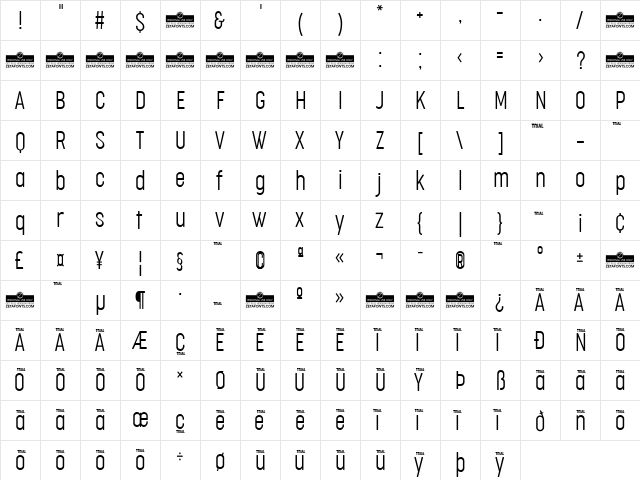
Cocogoose Compressed Trial UltraLight
| Foundry | Zetafonts |
| Designer | Cosimo Lorenzo Pancini |
Design Context for Cocogoose Compressed Trial Typeface
Cocogoose Compressed Trial is a composed and adaptable typeface that performs quietly and consistently across a wide range of design contexts. Its slender proportions lend an understated elegance to any composition.